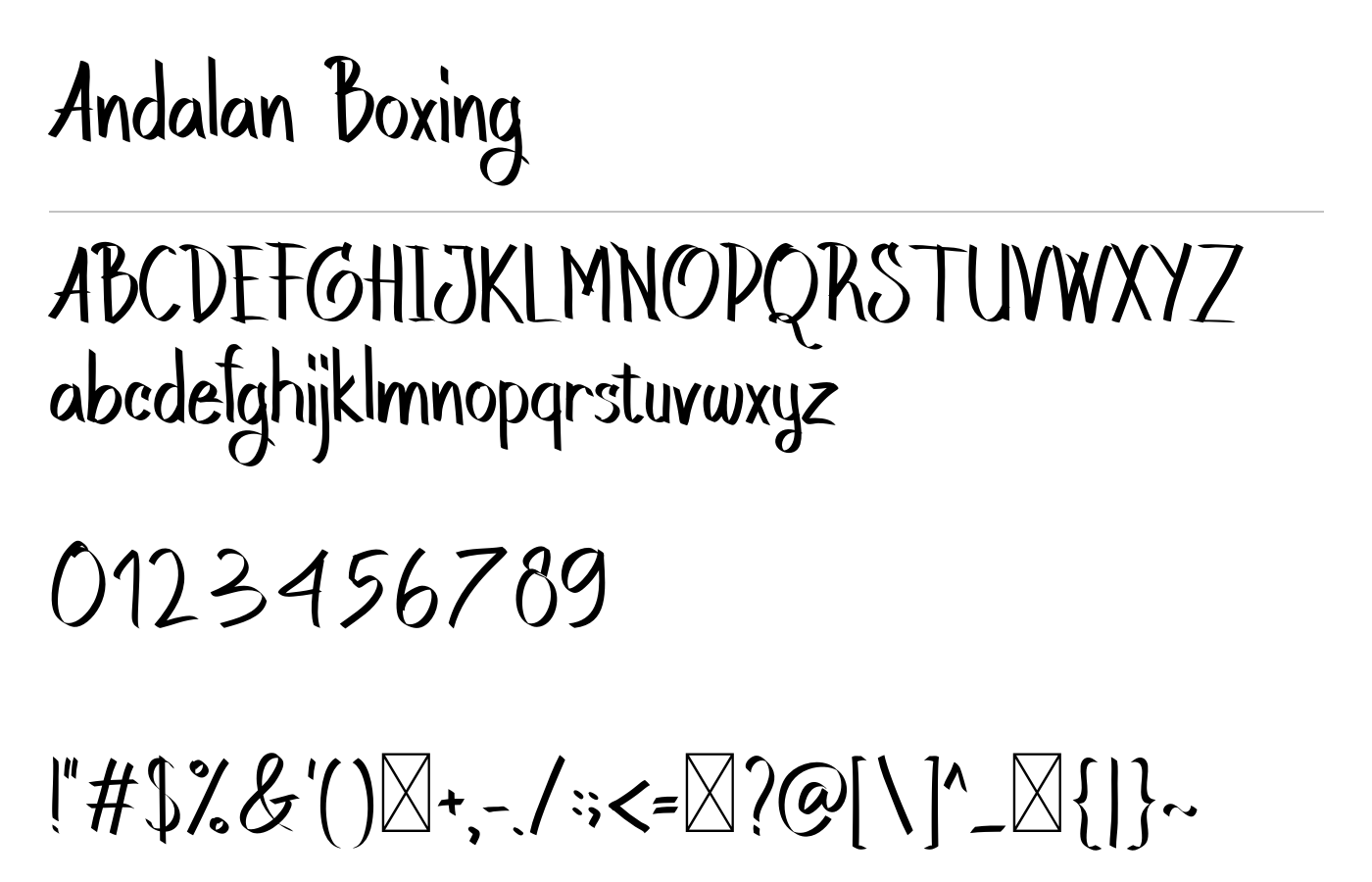
Andalan Boxing is a playful handwritten font with a lively, casual feel. Its tall, slightly irregular letterforms and varying stroke widths give it a friendly, approachable personality ideal for creative projects, informal branding, and eye-catching headlines. This font works well where a personal, expressive touch is needed, such as invitations, posters, and fun packaging designs.
Andalan Boxing Font
About Andalan Boxing Font
| Font family | Andalan Boxing Font |
| Designer | Rachmad Bagus Fatchi |